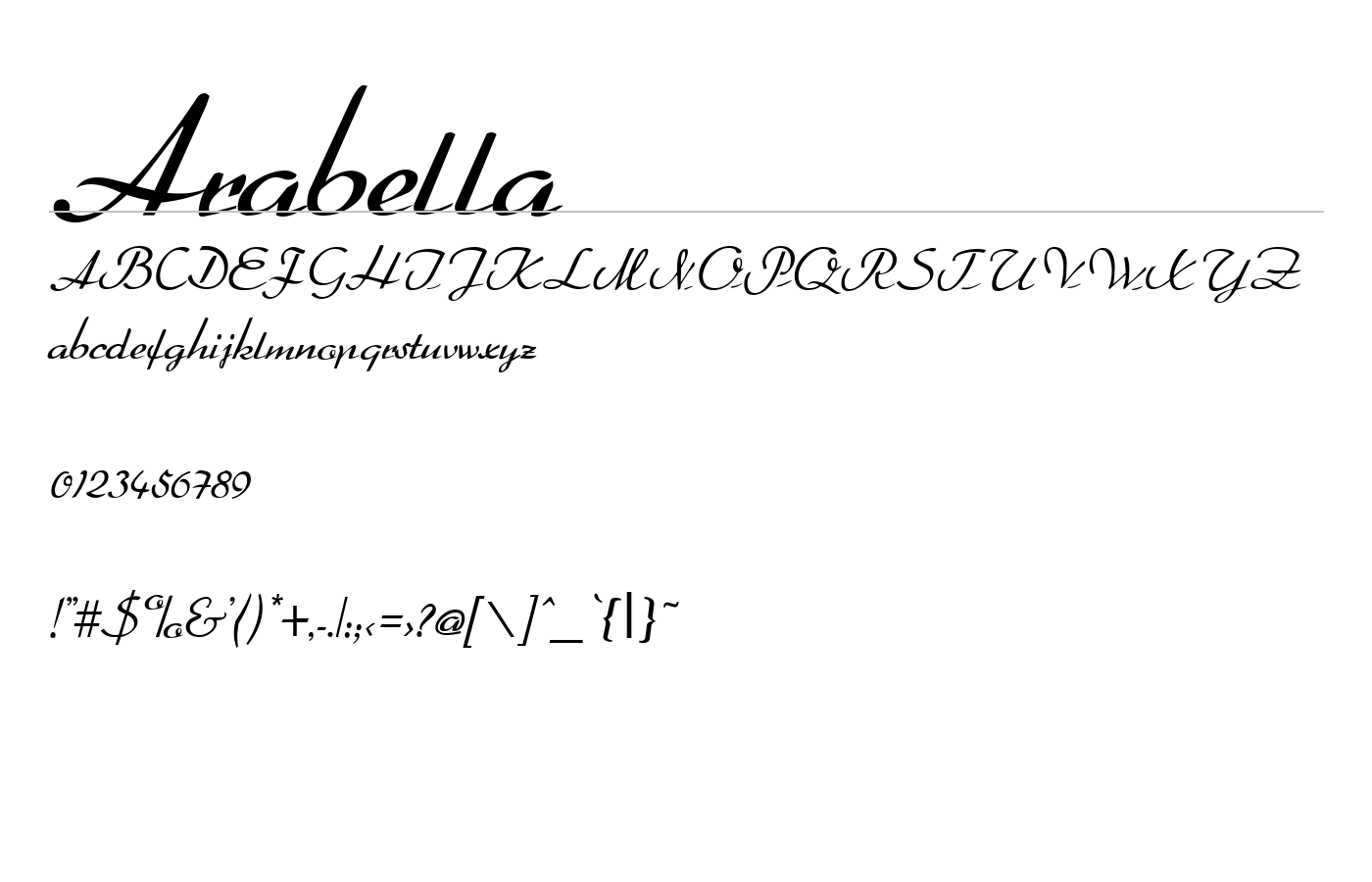
Arabella Font is an elegant, classic script font characterized by its delicate, flowing strokes and refined, calligraphic style. With its light weight and graceful curves, it conveys a timeless sophistication perfect for invitations, luxury branding, and decorative headlines where a graceful, personal touch is desired. This font shines in contexts that require a refined and artistic feel, blending beauty with readability.
Arabella Font
About Arabella Font